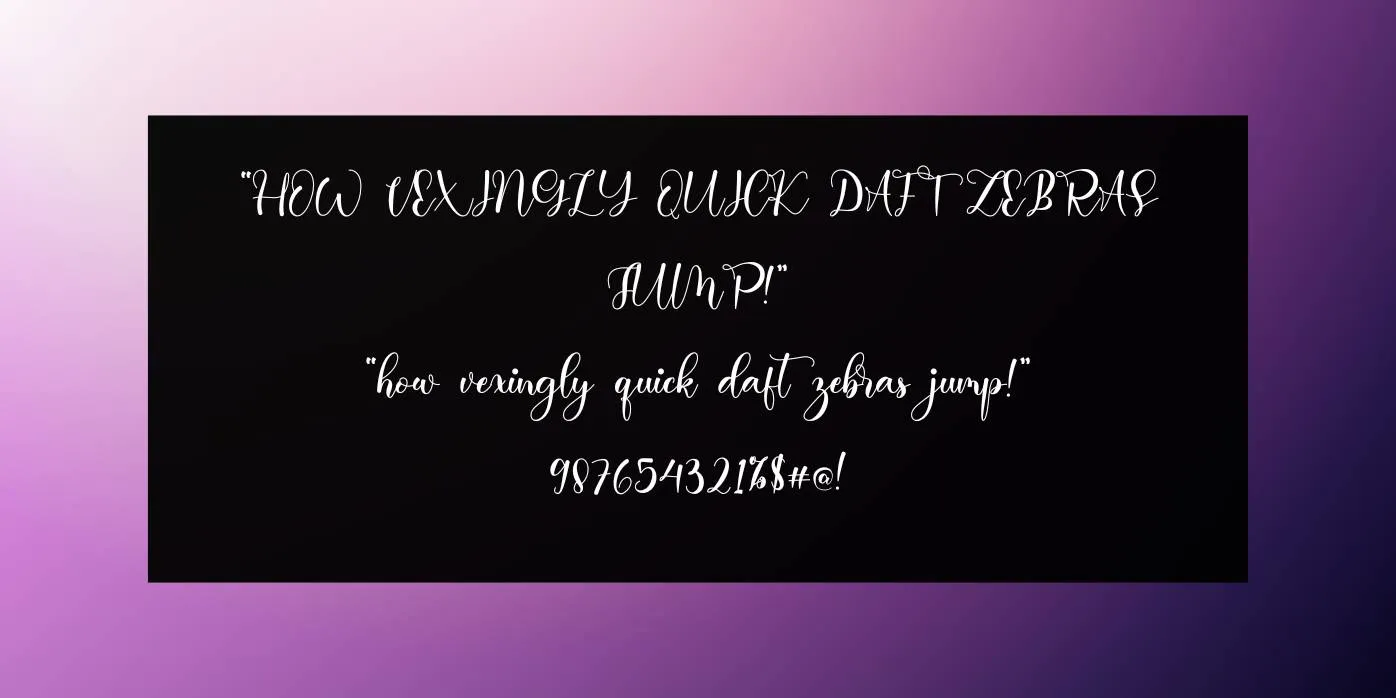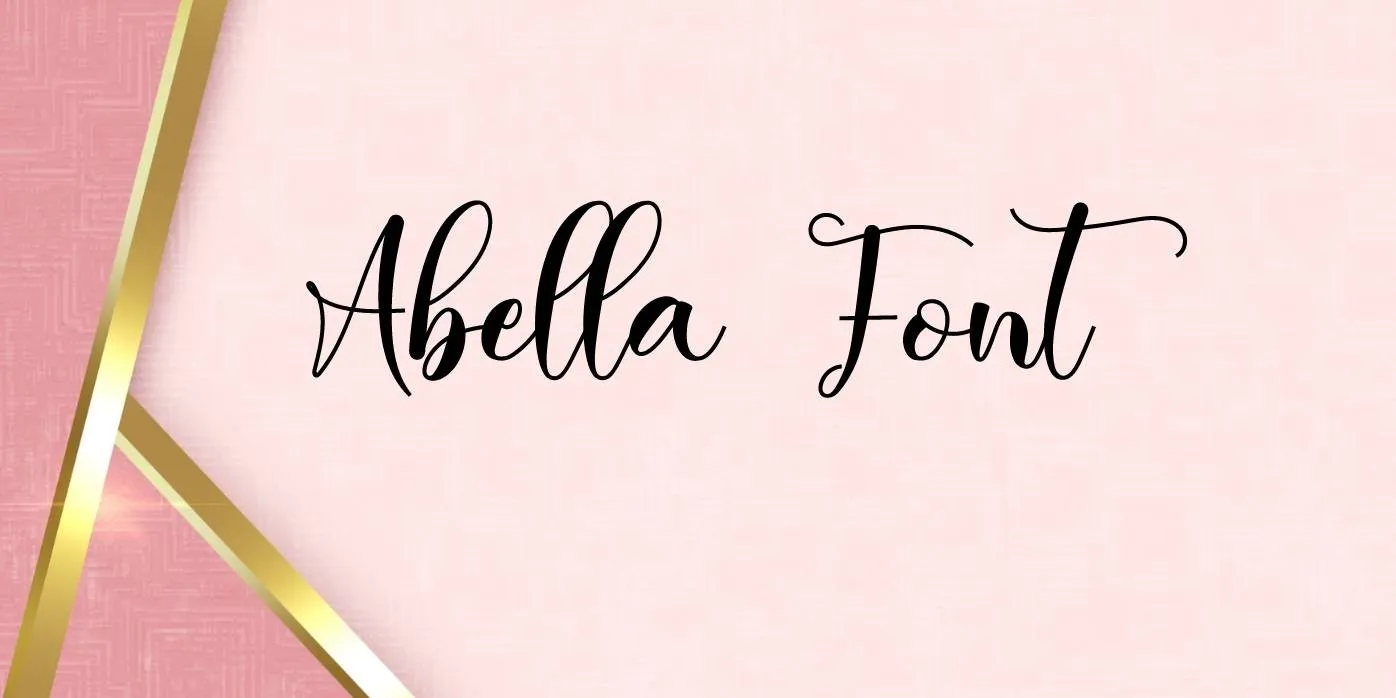
Abella Font
NanaNissa designed this typeface. Abella Font is a fancy font that has bold and attractive characters. This typeface can be used for personal projects free of cost. The industrial usage for this typeface needs a license.
This typeface has the flexibility to adapt projects like wedding cards, birthday cards, business cards, posters, and many more like that.